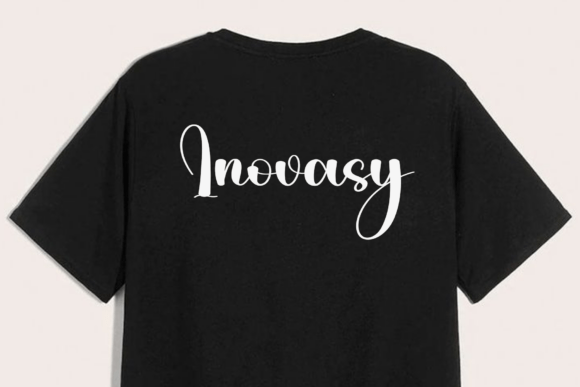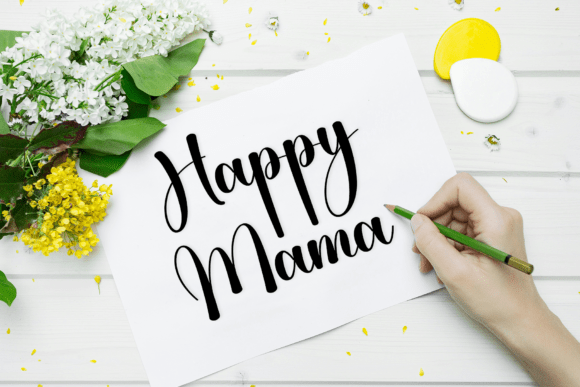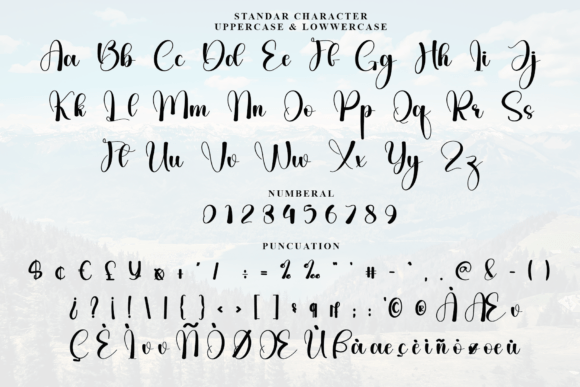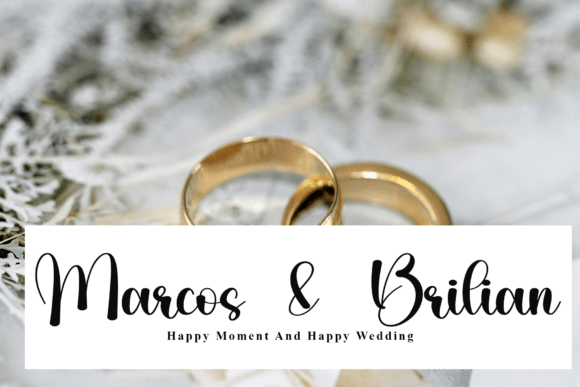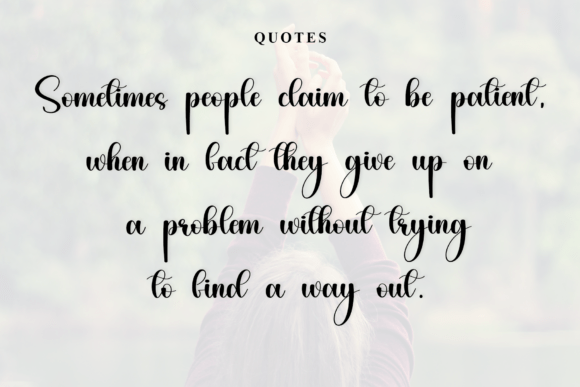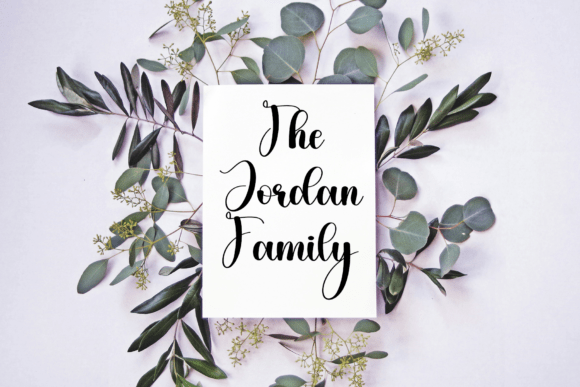
Introducing Healing Font: The Sweet and Cursive Handwritten Font for Elegant Designs
In the world of typography, fonts play a crucial role in conveying the tone and personality of a design. If you’re a designer or crafter looking for a font that exudes elegance, joy, and romance, look no further than Healing Font. This beautiful, sweet, and cursive handwritten font is perfect for adding a touch of sophistication to your projects while maintaining a casual and approachable feel.
What Makes Healing Font Special?
Healing Font is a versatile and elegant font that can be used on a wide range of design ideas. Its gentle and flowing script makes it perfect for designs that require a touch of romance and whimsy. Whether you’re working on a branding project, logo design, wedding materials, greeting cards, fashion designs, or marketing promotions, Healing Font is sure to impress.
One of the standout features of Healing Font is its ability to add a joyful and romantic touch to any design. Its cursive script and sweet letterforms make it perfect for creating elegant and sophisticated designs that are sure to capture the attention of your audience.
Healing Font is a highly versatile font that can be used on a wide range of design projects. Here are some ideas to get you started:
- Branding: Use Healing Font to create a logo or brand identity that exudes elegance and sophistication.
- Wedding Designs: Add a touch of romance to your wedding designs, including invitations, programs, and decorations.
- Greeting Cards: Create beautiful and heartfelt greeting cards for special occasions, such as birthdays, anniversaries, and holidays.
- Fashion Designs: Use Healing Font to add a touch of elegance to your fashion designs, including lookbooks, catalogs, and advertisements.
- Marketing Promotions: Create eye-catching marketing materials, including brochures, flyers, and social media graphics, that showcase your brand’s personality and style.
Why Choose Healing Font?
There are many fonts to choose from, but Healing Font stands out for its unique combination of elegance, joy, and romance. Here are some reasons why you should consider choosing Healing Font for your next design project:
- Elegant and Sophisticated: Healing Font has a sophisticated and elegant feel that’s perfect for designs that require a touch of luxury.
- Versatile: Healing Font can be used on a wide range of design projects, from branding and logos to wedding designs and greeting cards.
- Easy to Read: Despite its elegant and cursive script, Healing Font is easy to read and understand, making it perfect for designs that require a clear and concise message.
- Unique: Healing Font has a unique and distinctive style that’s sure to set your designs apart from the competition.
Tips for Using Healing Font
Here are some tips for getting the most out of Healing Font:
- Use it as a Headline Font: Healing Font is perfect for use as a headline font, where its elegant and cursive script can really shine.
- Pair it with a Sans-Serif Font: For body text, consider pairing Healing Font with a sans-serif font to create a nice contrast and add visual interest.
- Experiment with Colors: Healing Font looks great in a variety of colors, so don’t be afraid to experiment and find the perfect hue for your design.
- Use it to Add a Personal Touch: Healing Font is perfect for adding a personal touch to your designs, whether it’s a handwritten note or a custom illustration.
In conclusion, Healing Font is a beautiful and versatile font that’s perfect for designers and crafters looking to add a touch of elegance and romance to their designs. With its sweet and cursive handwritten script, Healing Font is sure to impress on a wide range of design projects, from branding and logos to wedding designs and greeting cards. So why not give Healing Font a try and see the difference it can make in your designs?